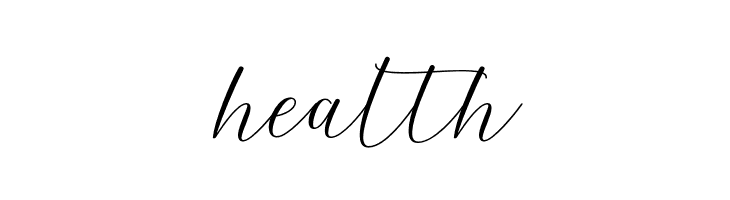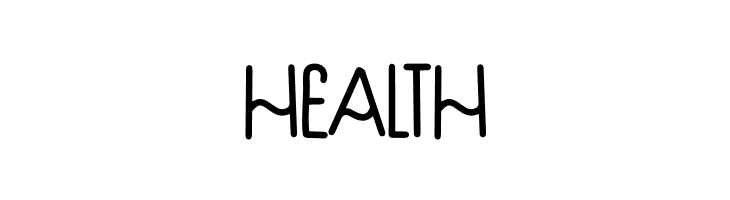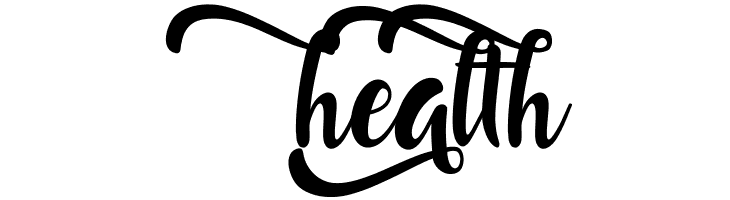
A dynamic and fluid script font with elegant, flowing letterforms.
A bold, flowing script font with a handwritten appearance.
A playful and elegant script font with flowing, cursive letterforms.
A graceful script font with elegant, flowing lines and high contrast.
A graceful, cursive script font with fluid, connected letterforms.
A flowing, cursive font with elegant, connected characters and subtle flourishes.
A playful, handwritten font with fluid, slightly irregular strokes.
An elegant, flowing script font with a classic and sophisticated style.
A bold, expressive script font with flowing, interconnected letters and dramatic flourishes.